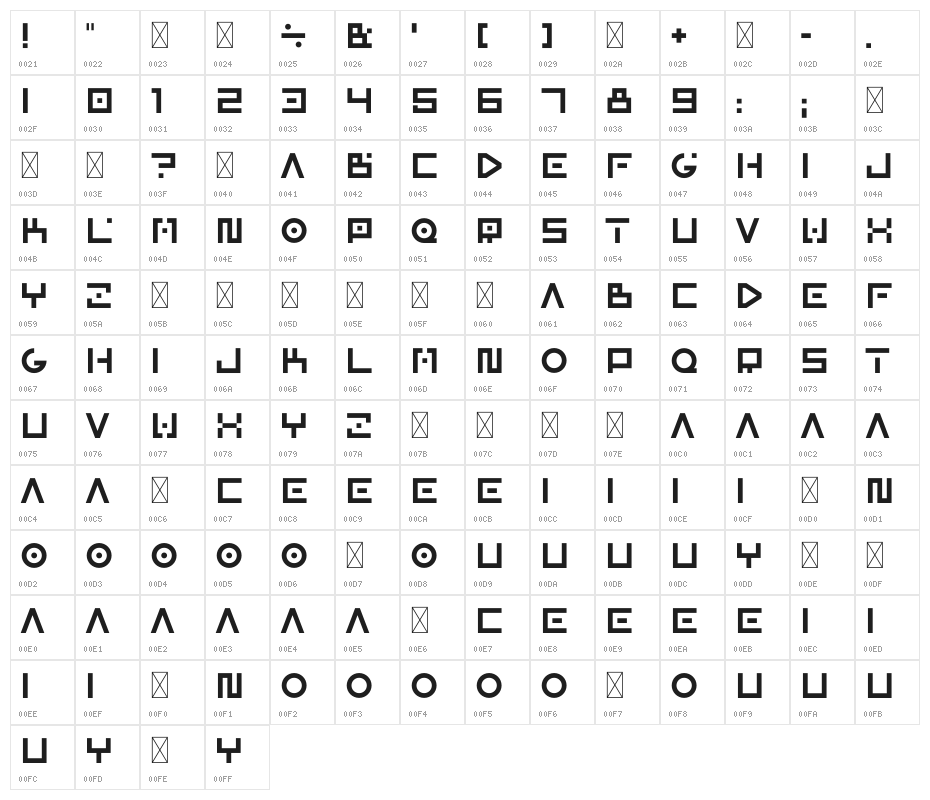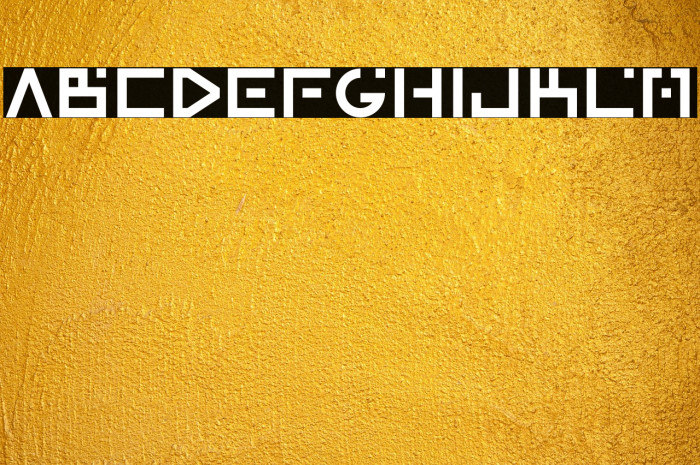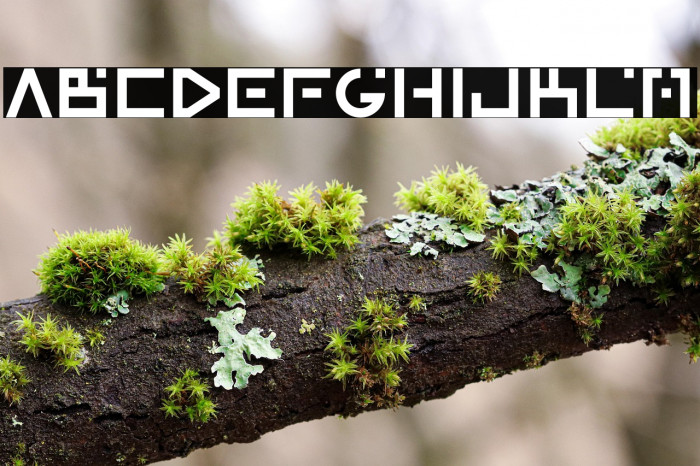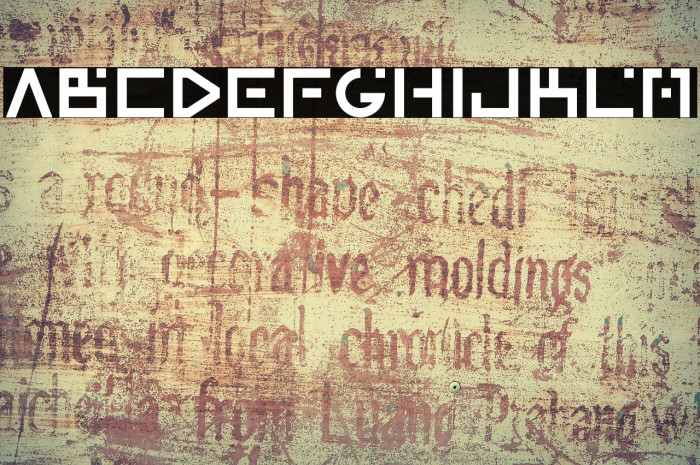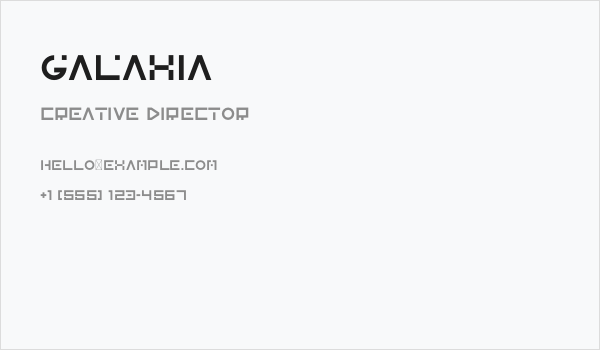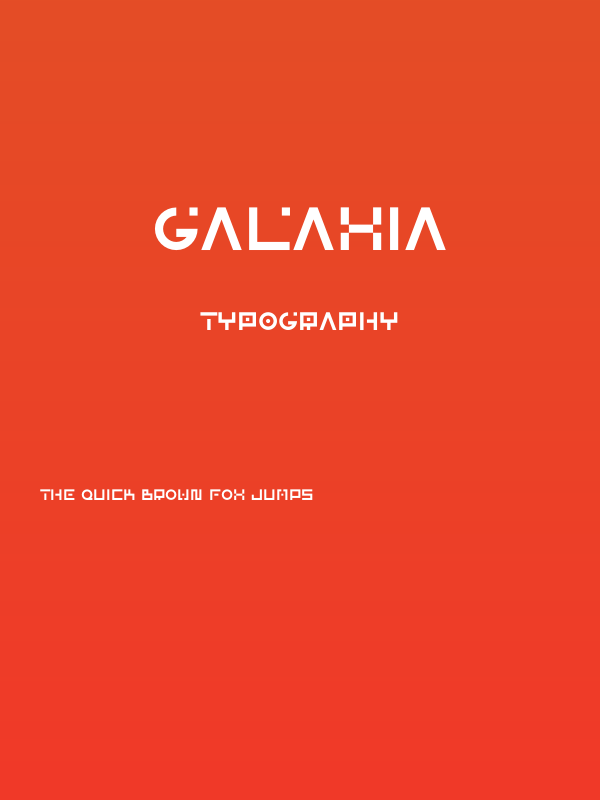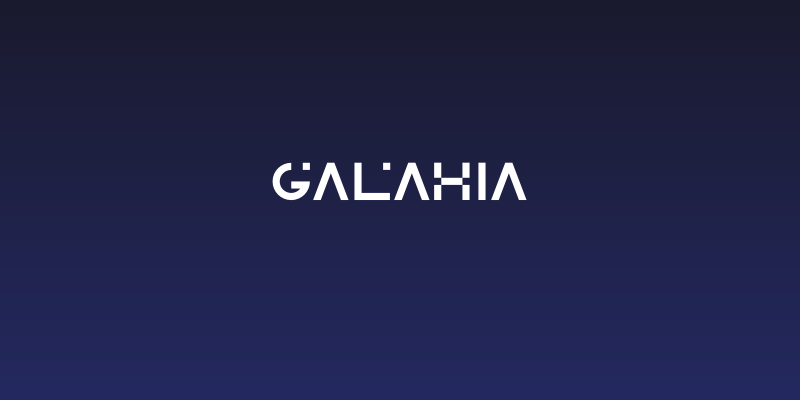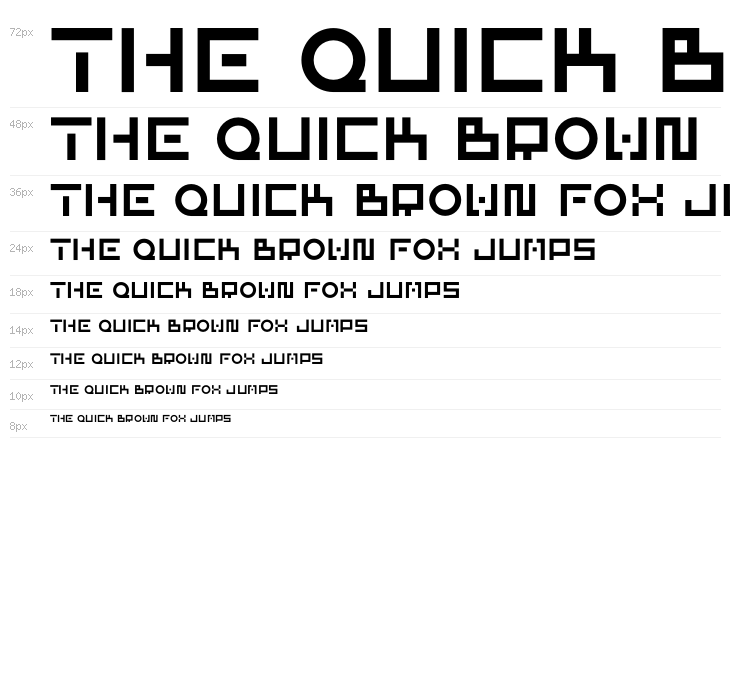
GALAXIA Font
GALAXIA Description
This font features a futuristic and geometric design, characterized by sharp angles and bold lines. The uppercase letters are distinct with a blocky appearance, while the lowercase maintains a consistent style. Numbers follow the same geometric pattern, making them easily recognizable. Special characters are uniquely crafted, adding to the font's overall modern aesthetic. The design is reminiscent of digital or sci-fi themes, making it suitable for projects that require a contemporary and edgy look.
| Proposed Projects | Ideal for sci-fi movie posters, video game titles, tech branding, and futuristic-themed designs. |